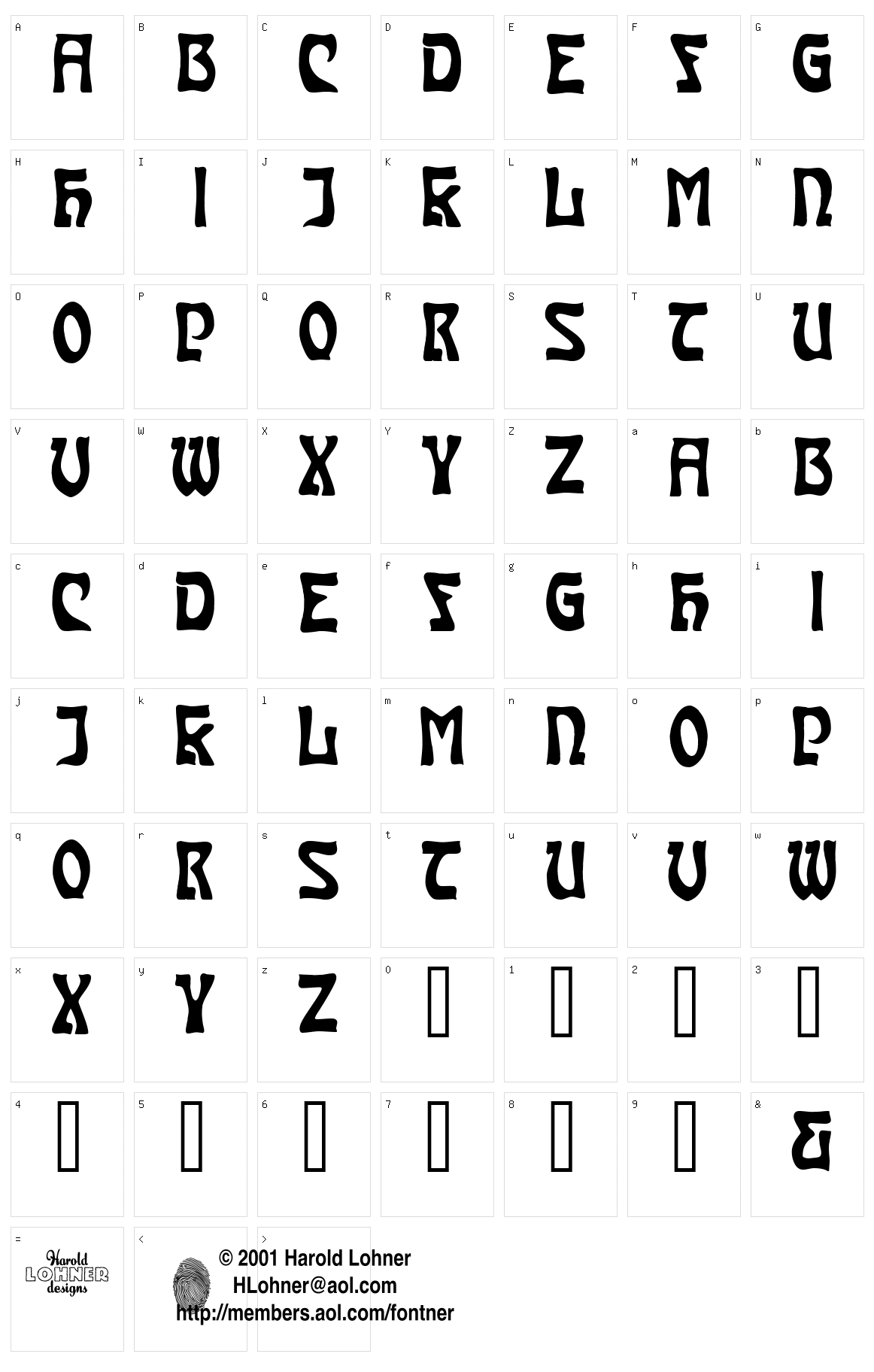
The free font Carmen Caps is carefully designed by Harold's Fonts, showcasing a thoughtful balance of creativity and usability and falls under the Initials font style. When you download the ZIP file, it contains only 115.02 KB of font files, making it lightweight and quick to download. Please review the license details below to understand permitted usage and distribution rights. If license information is not available, we recommend using this font for personal projects only or contacting the author directly for commercial usage permissions.